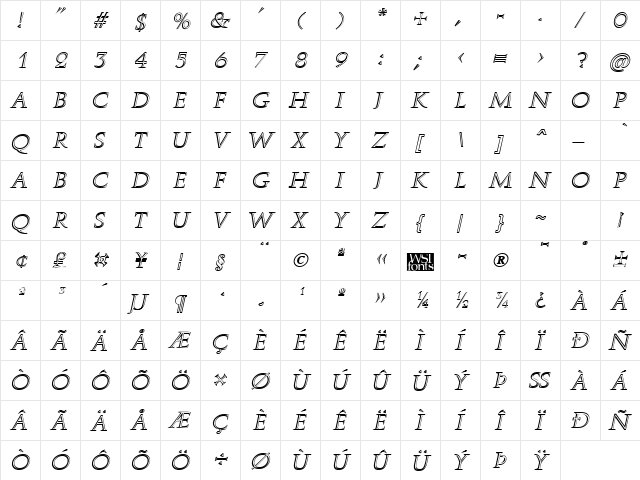
RomanStonecut Italic
Design Context for RomanStonecut Typeface
RomanStonecut is a composed and adaptable typeface that performs quietly and consistently across a wide range of design contexts. The dynamic lean of this cut emphasises speed and emphasis in any layout.
Pro Tip: Try RomanStonecut for annotation and caption copy alongside an upright companion — the contrast in angle creates a dynamic but ordered typographic system.